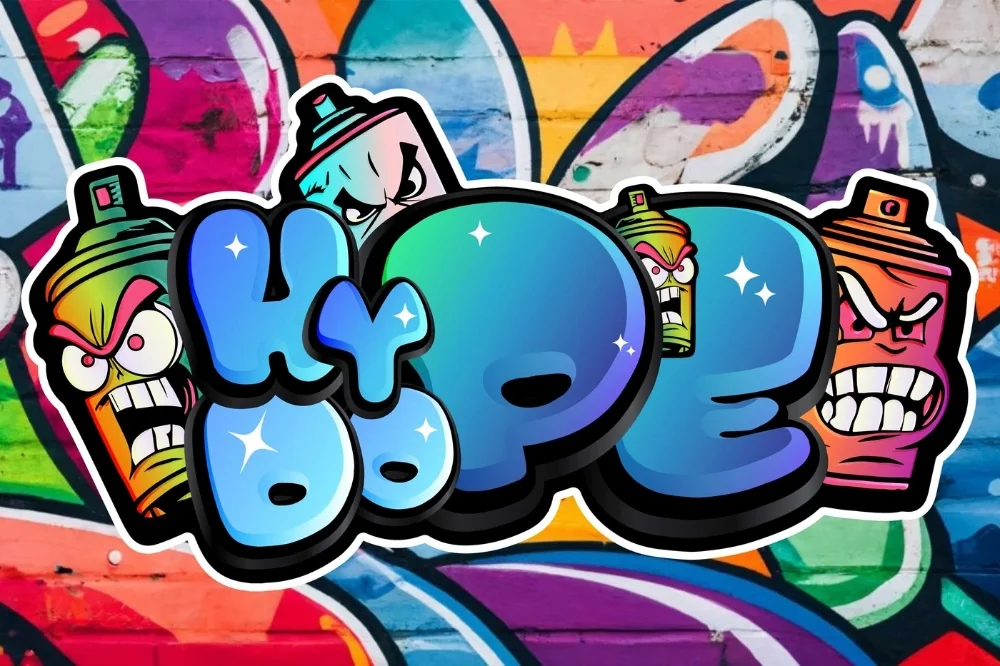
Hype Street Poster Font
If you have been hunting for a street poster font that does not look like every other download on the internet, this one earns its place. Big, blocky letters built for pasting up at scale. Reads clearly from across the street.
Wide stems and short, stubby serifless terminals keep the silhouette simple, and the tight spacing lets you stack lines into a solid block of text. Very little detail to lose at distance.
Made for gig posters, sale signage, market stall boards, and large-format prints.